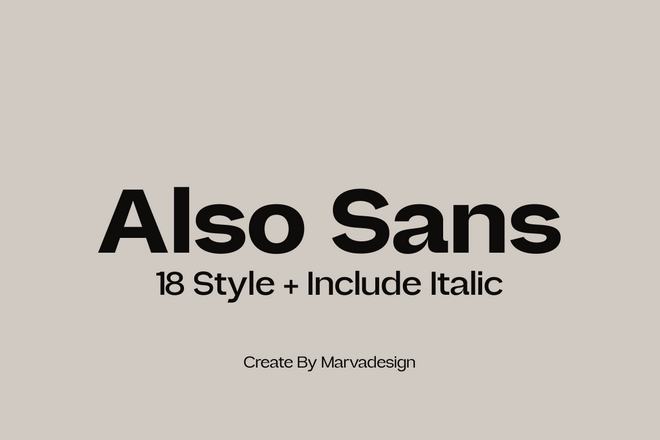
25 Recommended Small Text Fonts That Improve Readability
Readability matters most when text shrinks down, and the right font can make all the difference.
This roundup highlights small text fonts that maintain strong readability while still offering style and personality.
Each font balances character clarity with thoughtful design so your content remains approachable, even at reduced sizes.
Whether you’re designing apps, dashboards, ebooks, or print documents, these fonts help you maintain a smooth reading experience.
With the right small text font, your design will be more readable, user-friendly, and visually balanced.
Quarty - Serif Small Text Font Family
Quarty is a beautifully refined font perfect for small text. With a unique blend of geometric shapes and graceful curves, Quarty Serif adds elegance and distinctive character to any project. This versatile font includes letters, numbers, punctuation, ligatures, accents, swashes, and alternates. Available in both OTF and TTF files, it’s your go-to choice for sophisticated typography.
Carlgine - Elegant Small Text Font
Carlgine is a versatile serif font family that adds elegance to small text with its 18 weights, ranging from Thin to Black, including italics. Ideal for branding and editorial designs, it features decorative alternates, stylistic glyphs, and offers smooth readability. Available in OTF, TTF, and WOFF formats, Carlgine supports multiple languages, enhancing creative projects with its refined touch.
Pripun - Clean Small Text Font
Pripun is a versatile sans serif font perfect for small text, offering 18 styles from Thin to Black and their Italic counterparts. Ideal for brand identities, impactful headlines, and readable interfaces, its precision letterforms ensure clarity and style. Available in OTF, TTF, WOFF, and WOFF2 formats, it supports multilingual characters, fractions, numbers, and punctuation.
Also Sans - Simple Small Text Font
Also Sans is a versatile sans-serif font offering 18 styles, from ultra-thin to bold, ensuring a perfect fit for any design need. With smooth curves and open counters, it maintains excellent legibility. It supports multilingual content and includes alternative and ligature options. Ideal for branding and digital use.
Glonimove - Geometric Small Text Font
Glonimove is a sleek and modern geometric font featuring 9 variable weights from Thin to Black, making it ideal for diverse design projects. With clean lines and sophistication, it enhances branding, signage, and print materials. Available in OTF, TTF, and WOFF formats, Glonimove supports multiple languages and includes both uppercase and lowercase characters, numbers, and symbols.
Avenis - Modern Small Text Font Family
Avenis is a versatile sans-serif typeface perfect for clean and modern text displays. Available in styles like Semibold, Regular, Semilight, and Light, it caters to diverse design needs. With multilingual support and formats in OTF and TTF, Avenis ensures your text is both attractive and readable across various contexts.
Humility - Classic Serif Small Text Font
Humility is a charming serif font, ideal for small text. It blends classic elegance with a touch of vintage flair, featuring sharp, expressive characters. With 24 variations from thin to bold, including italics, it enhances logos, headlines, and more. Whether for print or web, Humility ensures readability and style, perfect for fashion publications and creative branding projects.
Texteron - Traditional Small Text Font
Texteron is a creative blend of classical type-design and modern flair, perfect for those seeking a serious yet unique look. Its mix of round and edgy forms ensures legibility even in small sizes. The font family includes Bold, Italic, and Small Caps for emphasis, making headlines pop with their distinctive details.
Dexperdy - Bold Small Text Font Family
Dexperdy is a modern sans serif font family designed for readability and impact in small text designs. With eight unique weights from Thin to Extra Bold, plus italics and outlines, it suits logos, titles, and more. Offered in multiple formats, Dexperdy includes multilingual support and special features like ligatures and alternates for versatile use.
Things - Modern Small Text Font Family
Things is a modern serif font family offering elegance and versatility for creative projects. With clean lines and refined details, it’s perfect for branding, editorial work, and digital content. Balancing traditional and modern styles, Things ensures readability for both headlines and body text, making it ideal for print and web use with multiple weights and styles for added flexibility.
Oliviar - Creative Small Text Font
Oliviar is a versatile sans serif typeface featuring a blend of modern and geometric influences with a humanist touch. With seven font weights from Thin to Bold, it supports a wide range of languages from English to Zulu, making it suitable for diverse design projects. Perfectly crafted, it’s an ideal choice for enhancing readability and style.
7. Avoid Decorative Details and Unusual Shapes
Unique letterforms, sharp angles, or exaggerated curves may look interesting but can hurt readability when reduced. Stick to familiar shapes that the eye can recognize quickly.
8. Test Contrast and Weight Together
Font choice does not exist in isolation. Always test the font with its background color and weight. A slightly heavier weight often reads better at small sizes without looking bold.